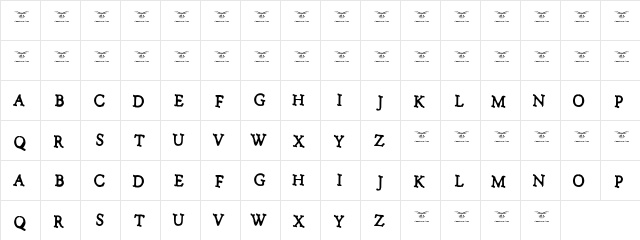
No talking please Regular
| Foundry | Fonts by Chris Vile |
| Designer | Chris Vile |
Design Context for No talking please Typeface
No talking please is a composed and adaptable typeface that performs quietly and consistently across a wide range of design contexts.